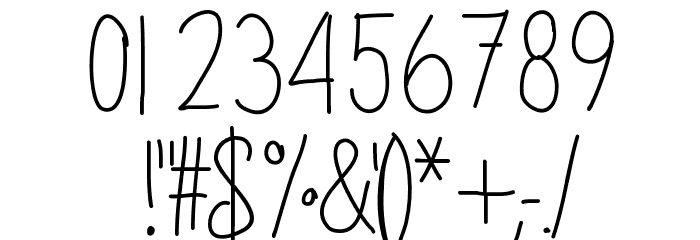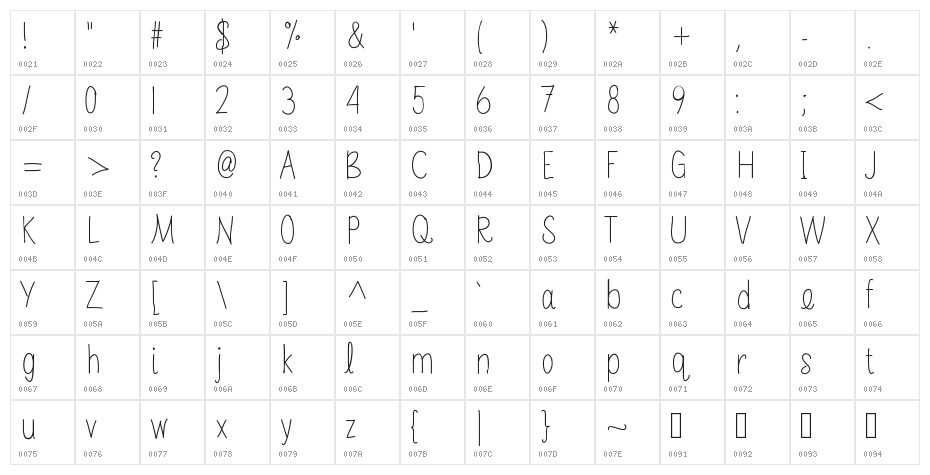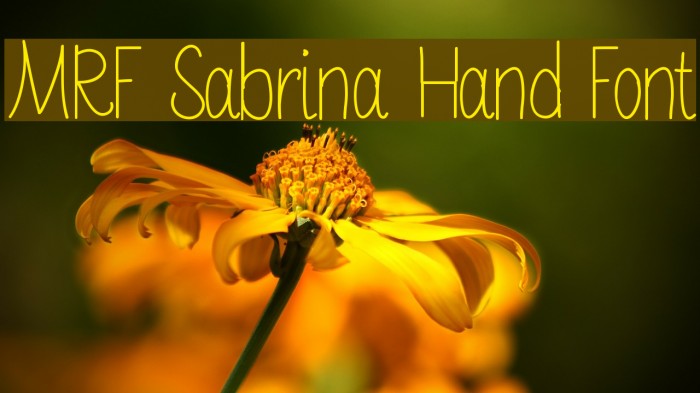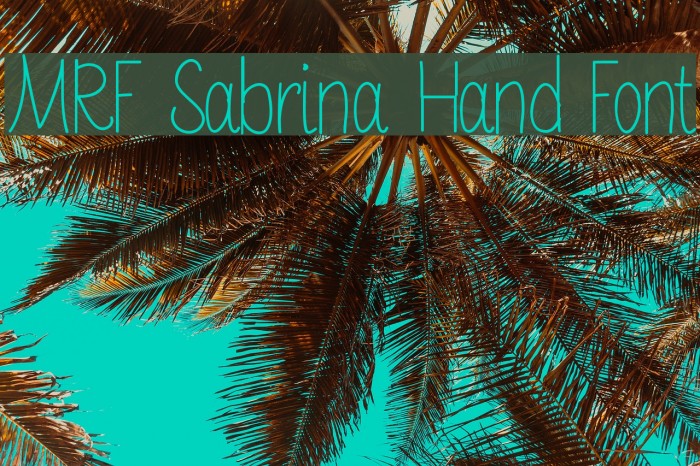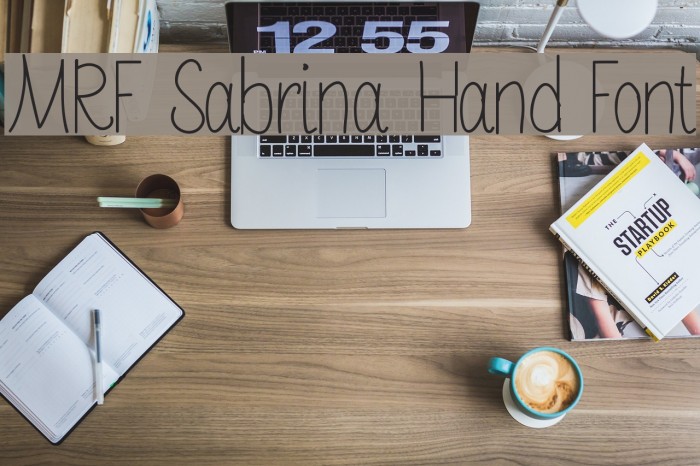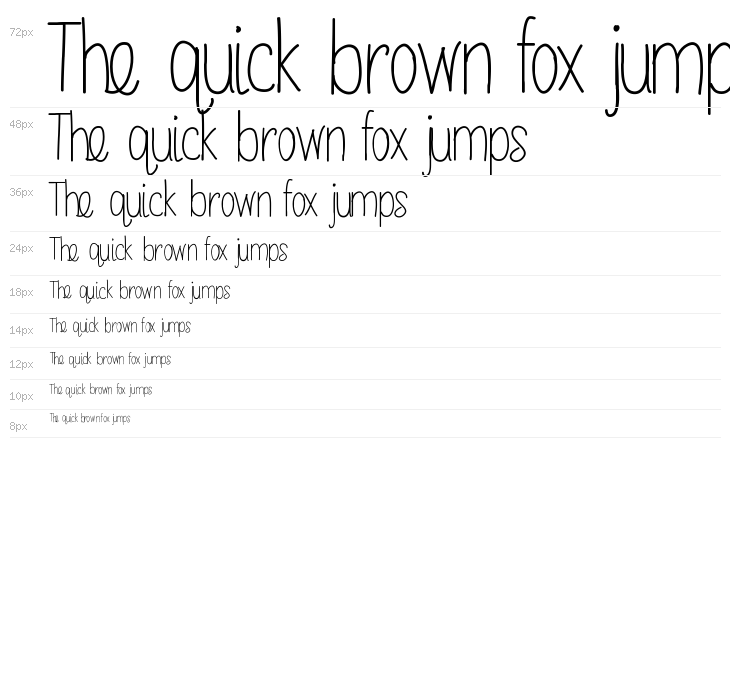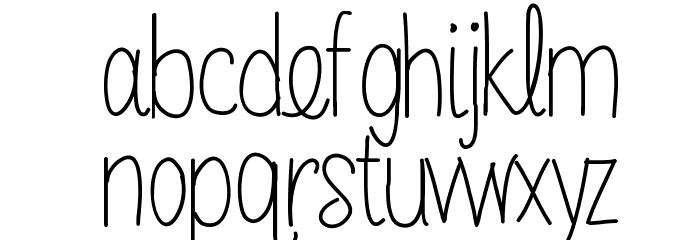
MRF Sabrina Hand Font Font
MRF Sabrina Hand Font Description
This font features a playful and casual handwritten style, characterized by its tall, narrow letters and slightly uneven lines that give it a personal touch. The strokes are consistent in thickness, providing a uniform appearance while maintaining a relaxed and informal vibe. The uppercase and lowercase letters are distinct, with the uppercase being slightly more elongated. Numbers and special characters follow the same whimsical style, making it suitable for projects that require a friendly and approachable look.
| Proposed Projects | Ideal for greeting cards, children's books, personal blogs, and informal branding projects. |